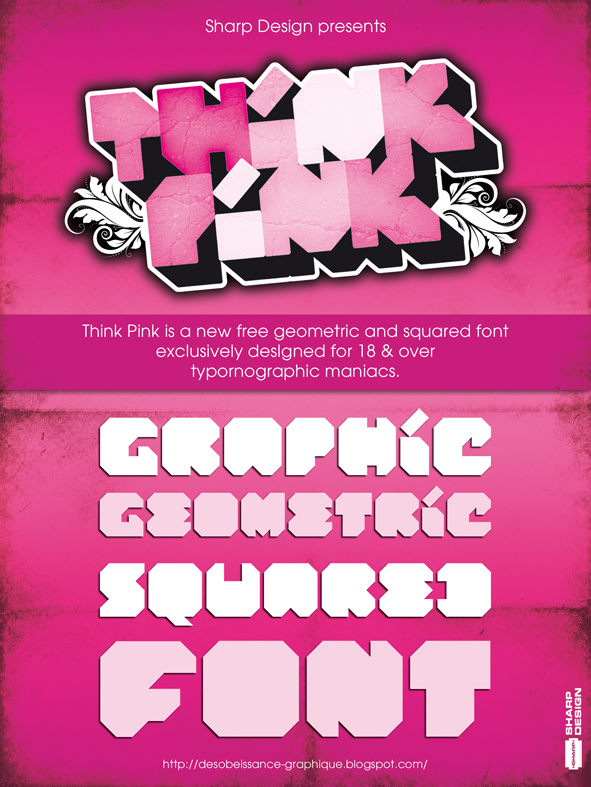
THINK PINK ! http://desobeissance-graphique.blogspot.com/ Enjoy my first free font. Think Pink is a geometric and squared font inspired by the 80's culture (Video games, graffiti, etc.). |